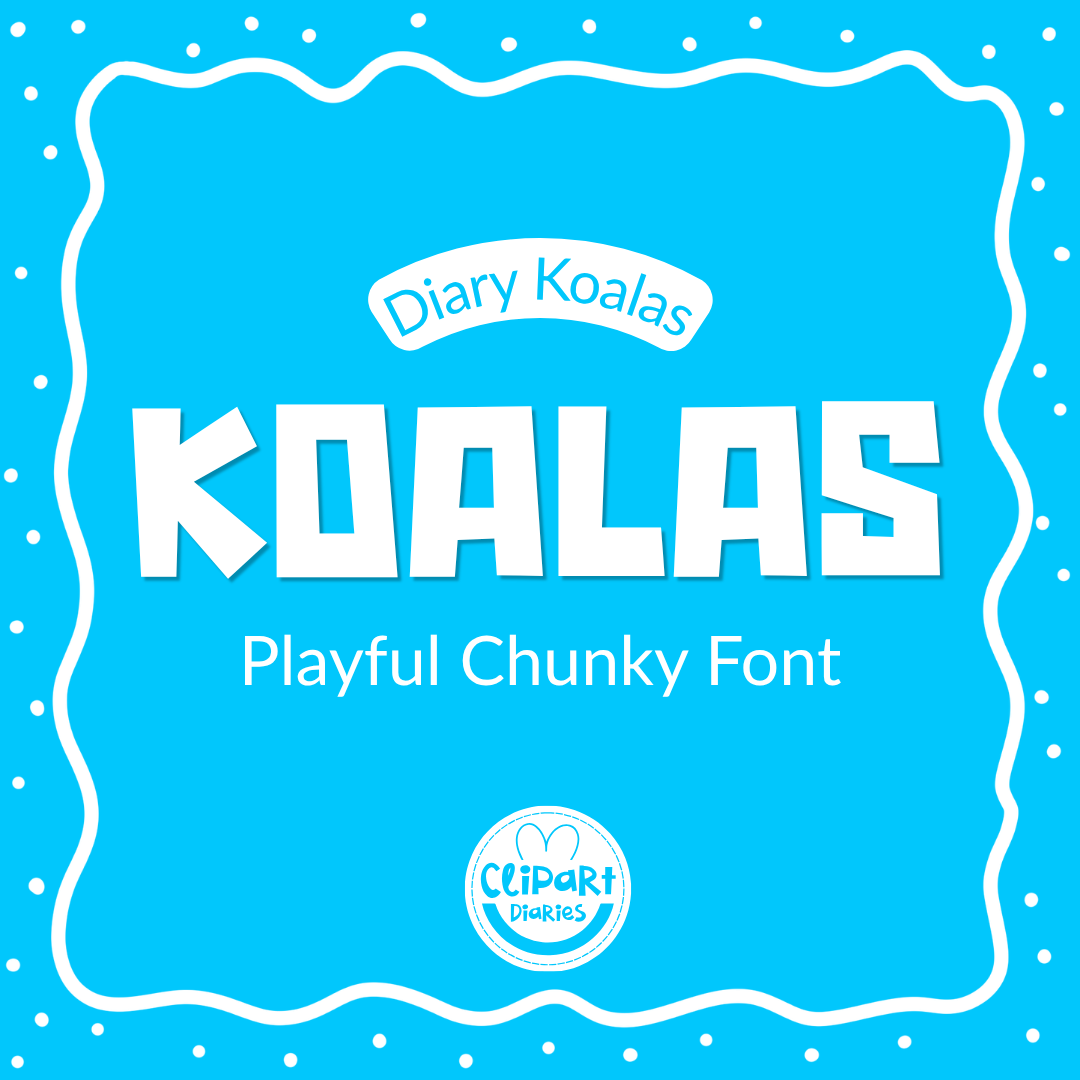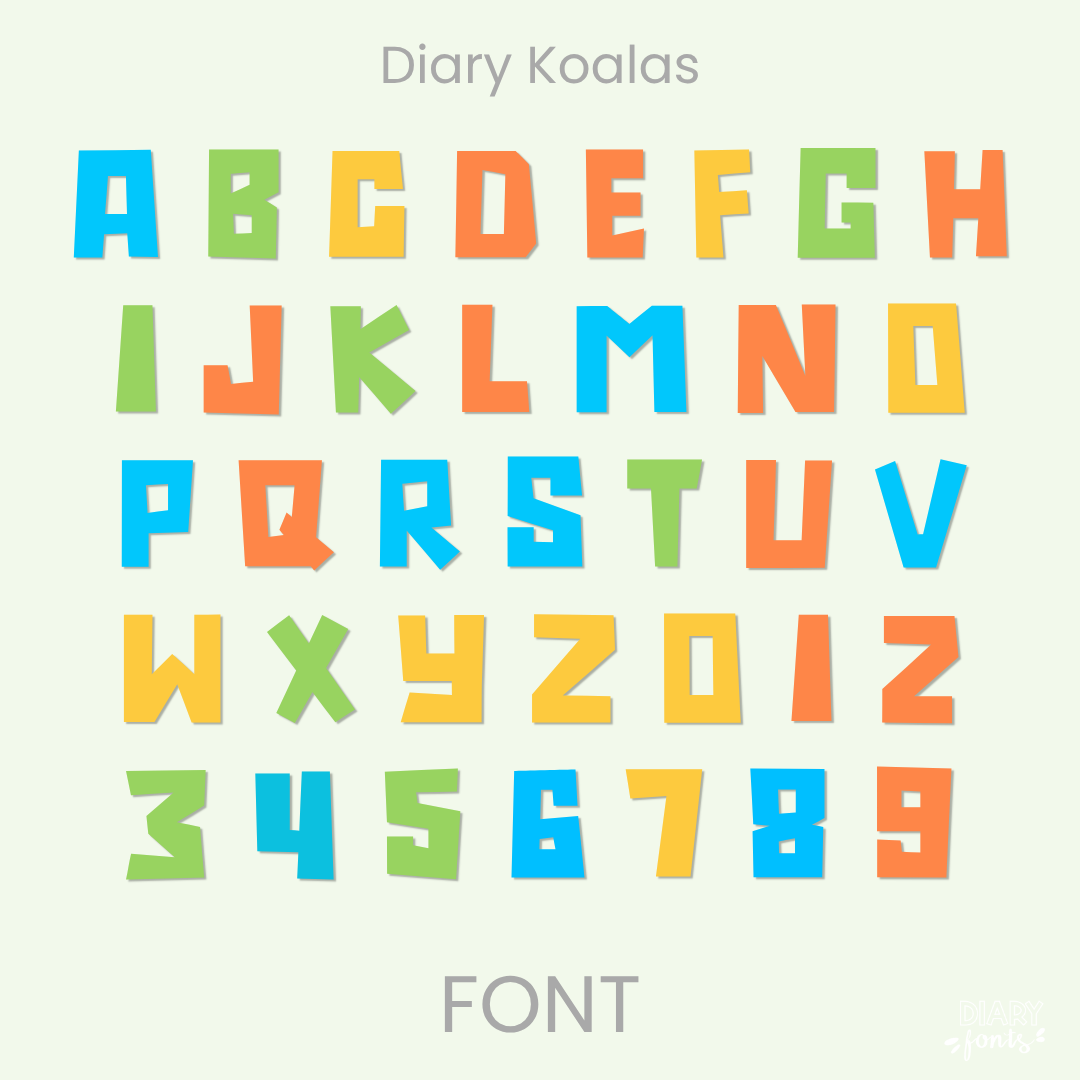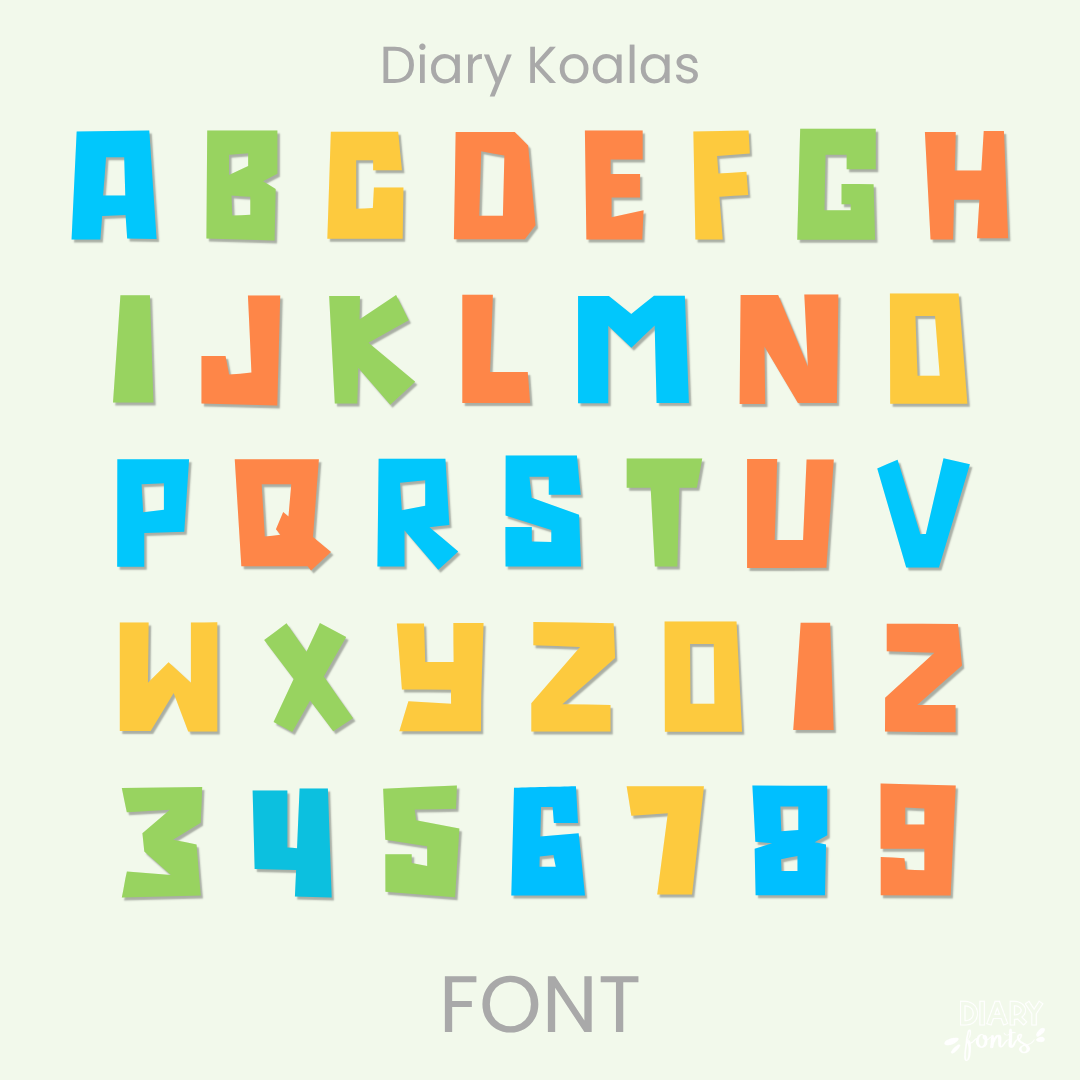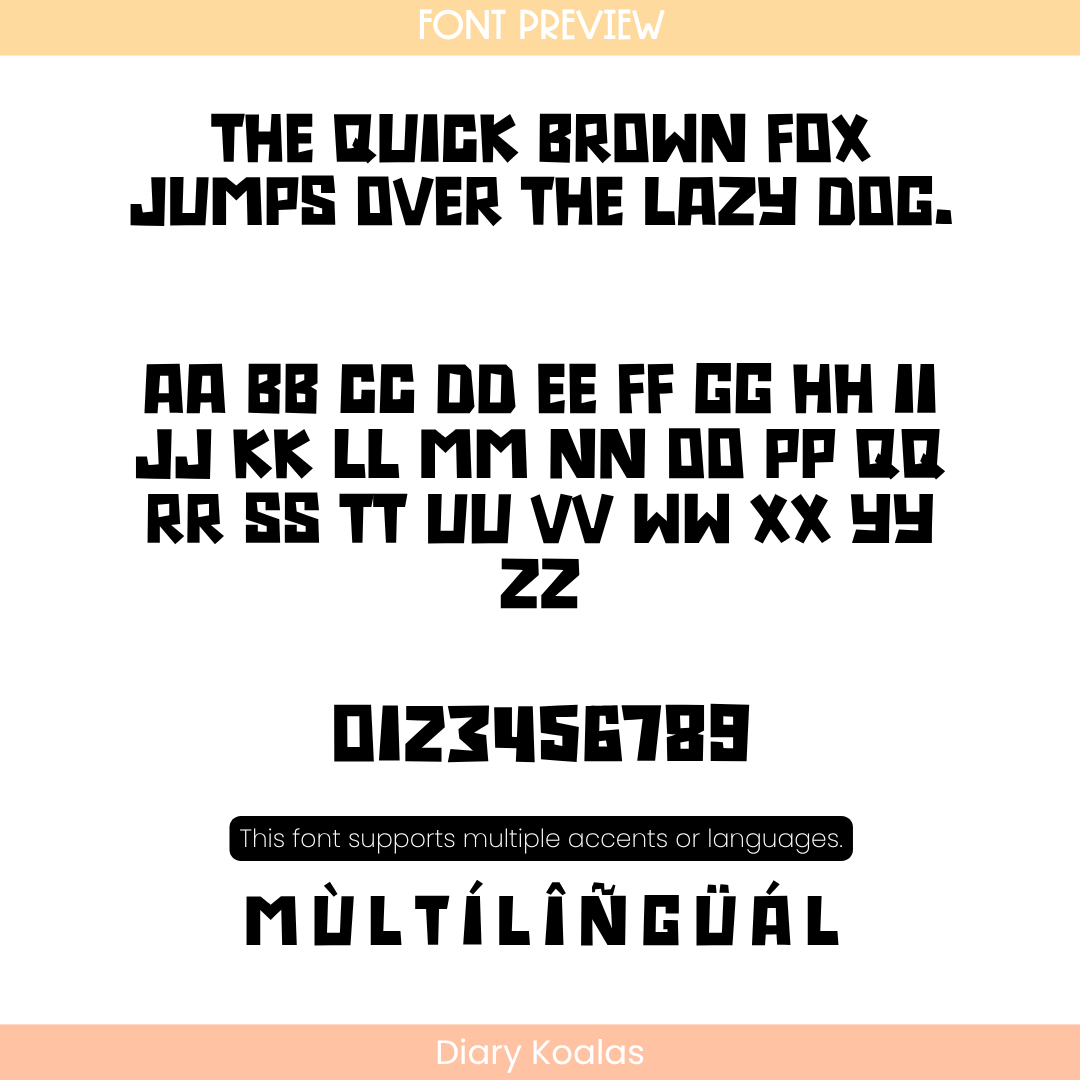
If you want to give your teaching materials a fun and attention-grabbing presence, Diary Koalas is an excellent choice. It features thick, blocky, hand-drawn character forms with a delightful, chunky layout style. It mixes a heavy visual punch with an informal, hand-crafted rhythm, making it look perfectly relaxed yet bold. Because both the uppercase and lowercase keys feature a strong all-caps structure that remains perfectly upright, it is optimized for standout headings, printable task cards, bulletin boards, and cover pages where you need maximum legibility from across a classroom. The font includes a full set of alphabet characters, numbers, and multiple accents for complete multilingual support. It installs quickly and works smoothly across Canva, MS Office, Adobe Apps, and on the iPad with Procreate and GoodNotes. Whether you are designing personal classroom decorations or commercial teacher resources, this typeface adds a bold, approachable, and friendly aesthetic to your work.